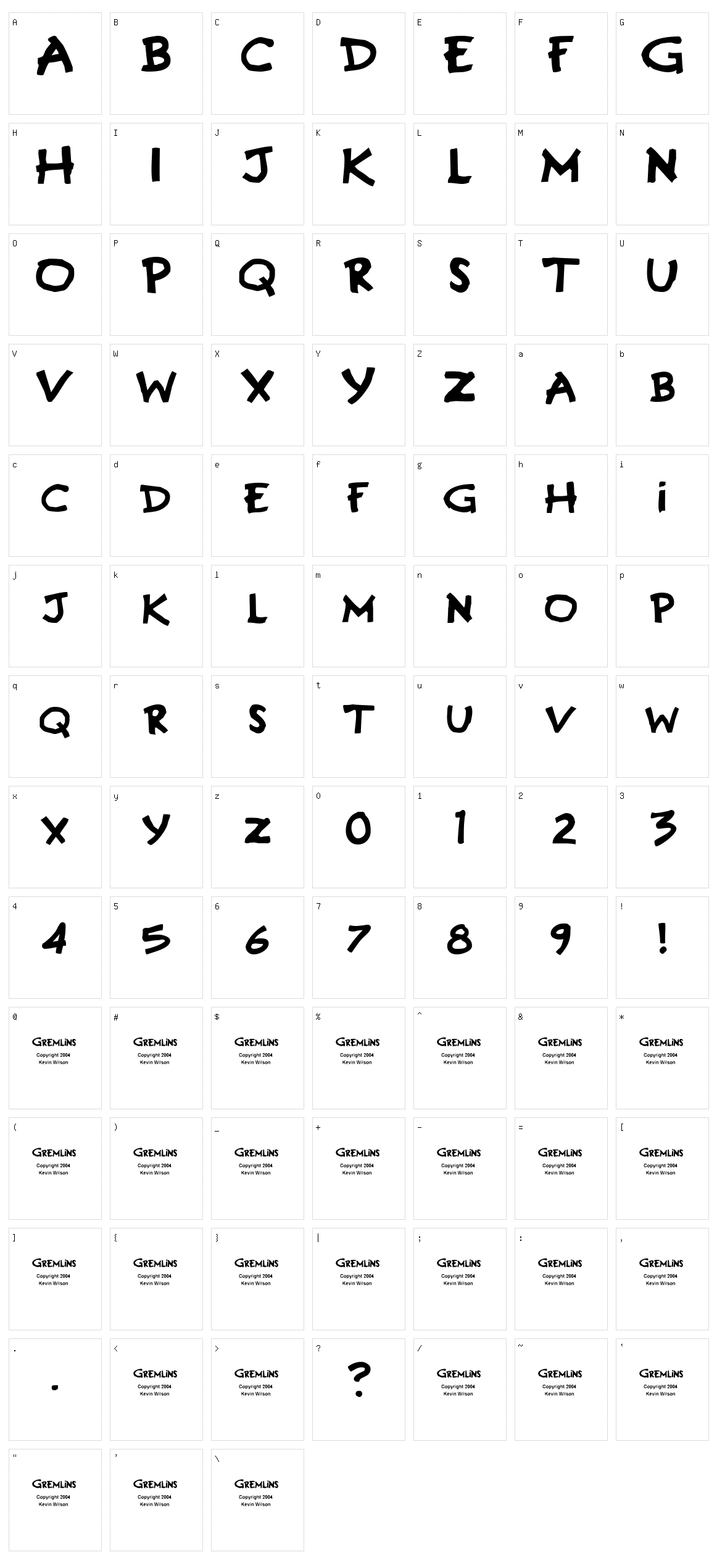
The free font Gremlins is carefully designed by The Flea Pit, showcasing a thoughtful balance of creativity and usability and falls under the Cartoon font style. When you download the ZIP file, it contains only 17.26 KB of font files, making it lightweight and quick to download. Please review the license details below to understand permitted usage and distribution rights. If license information is not available, we recommend using this font for personal projects only or contacting the author directly for commercial usage permissions.